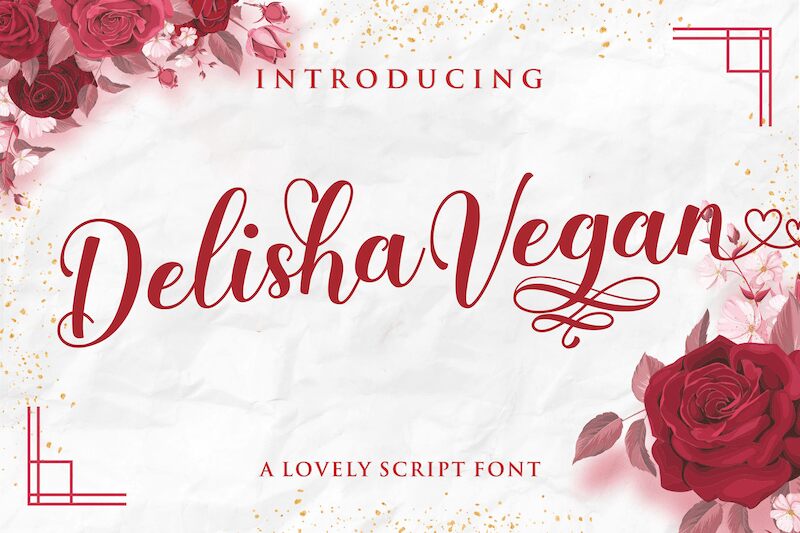
Delisha Vegan, crafted by renowned designer Mans Greback, is a captivating calligraphy font that exudes elegance and charm. With its semi-light weight, this font adds a touch of sophistication to any project. Perfect for wedding invitations, greeting cards, or luxury brand logos, Delisha Vegan beautifully complements feminine and delicate designs. Its graceful strokes and intricate details make it an ideal choice for creating exquisite typography art pieces or adding a refined touch to fashion magazines. Let this enchanting font elevate your creations and leave a lasting impression on your audience.